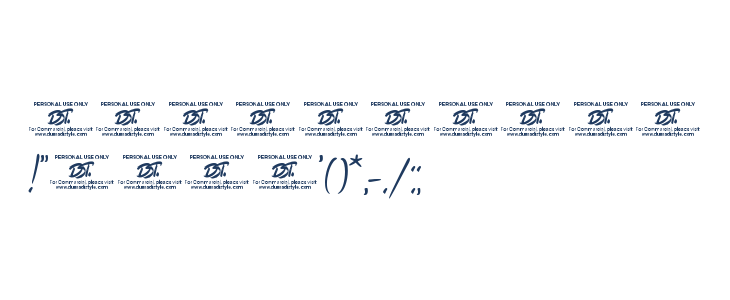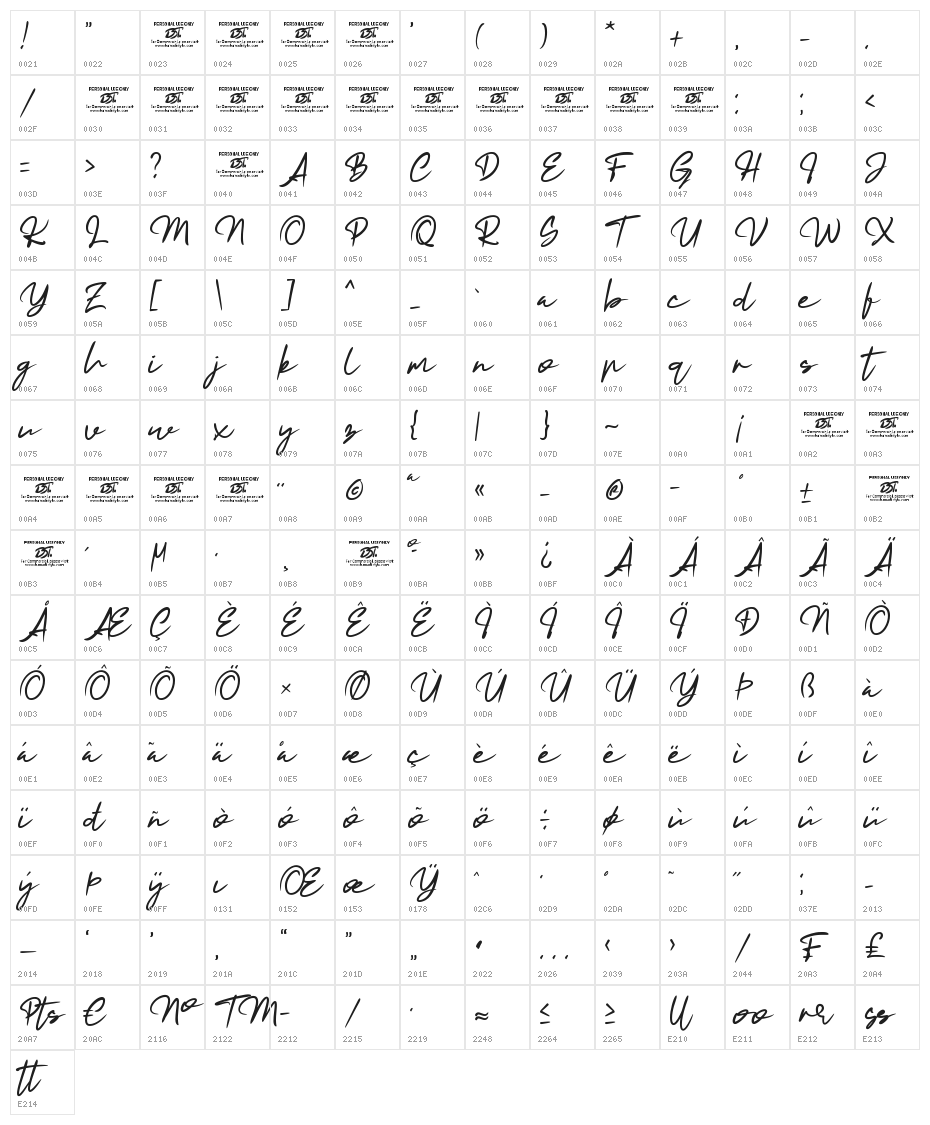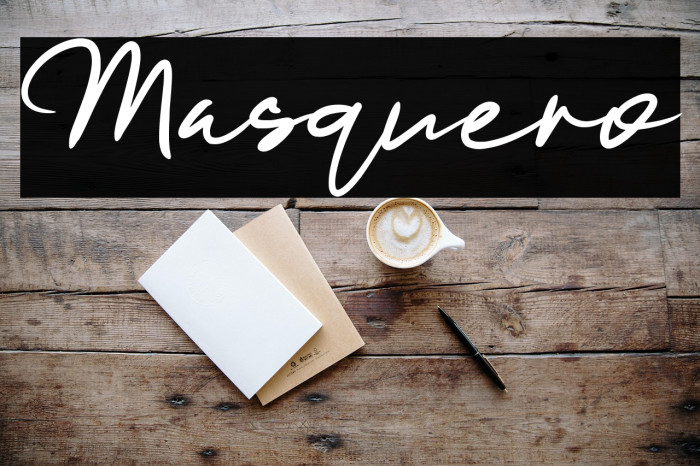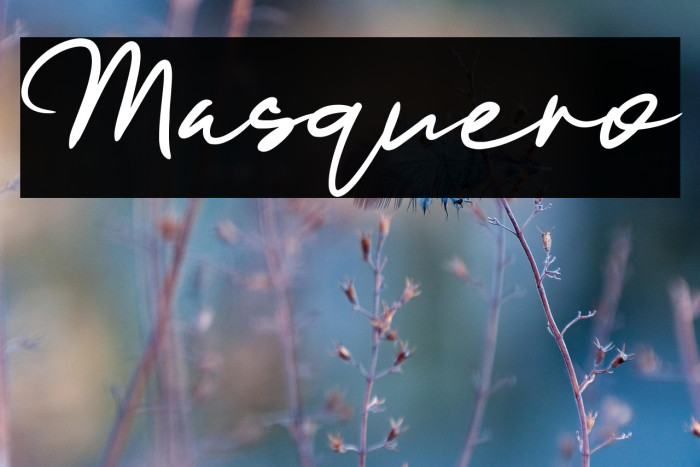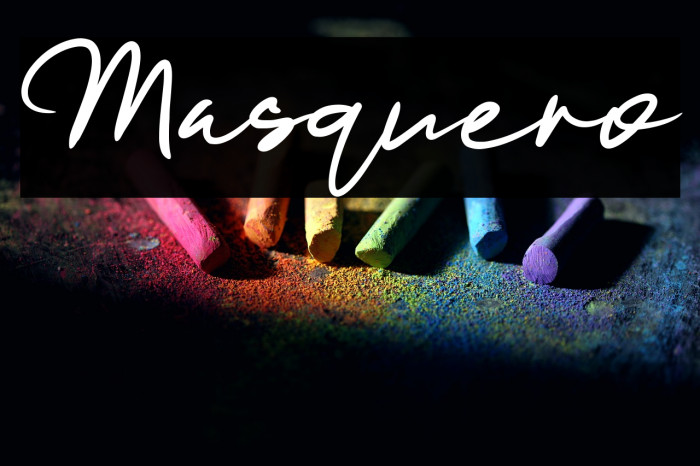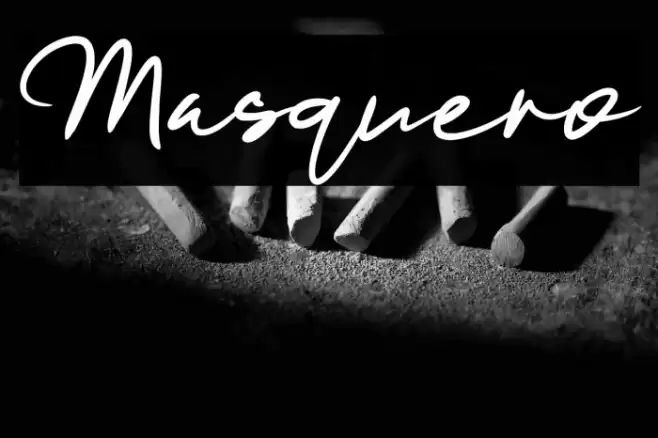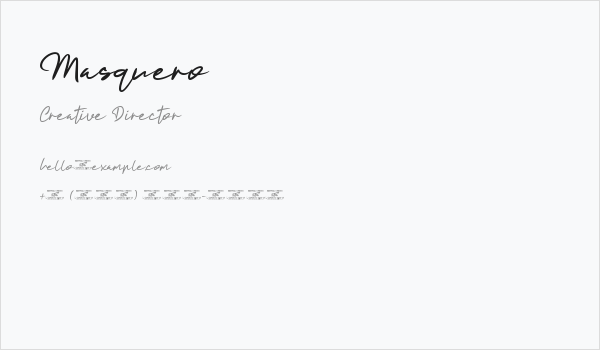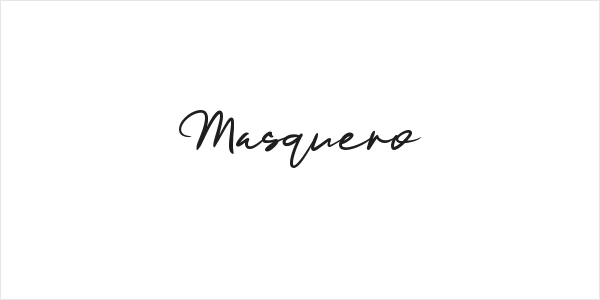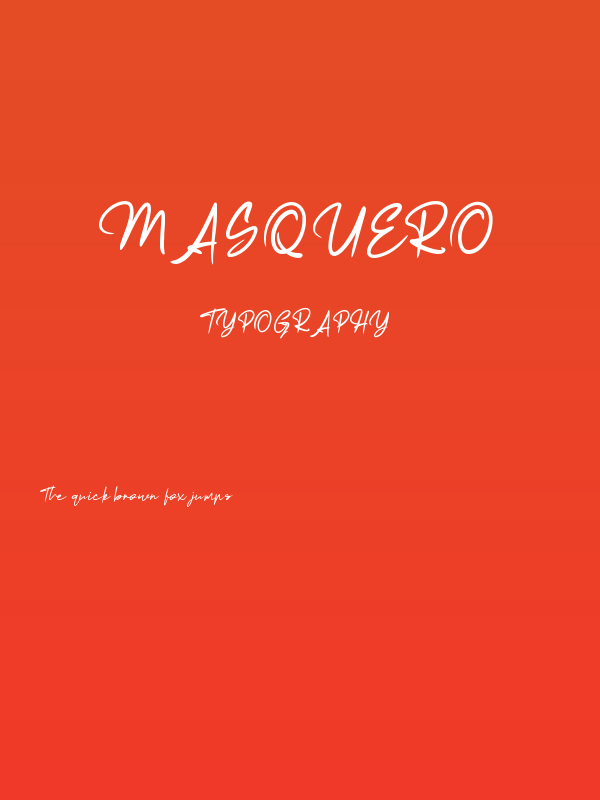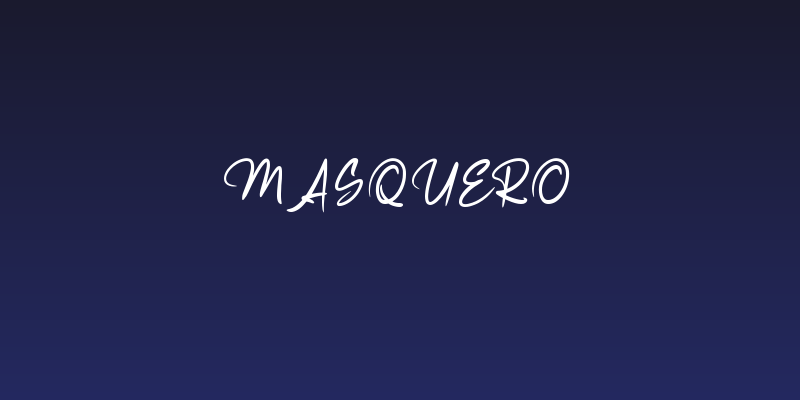
Masquero Font
Masquero Description
This font features a flowing, cursive style with elegant, sweeping lines that create a sense of movement and grace. The uppercase letters are bold and prominent, while the lowercase letters maintain a consistent fluidity, making it ideal for creating a sophisticated and stylish look. The characters are well-balanced, with a slight slant that adds to the dynamic appearance. The font includes a full set of uppercase and lowercase letters, numbers, and a selection of special characters, allowing for versatile use in various design projects.
| Proposed Projects | Ideal for wedding invitations, branding, logos, and elegant stationery. |